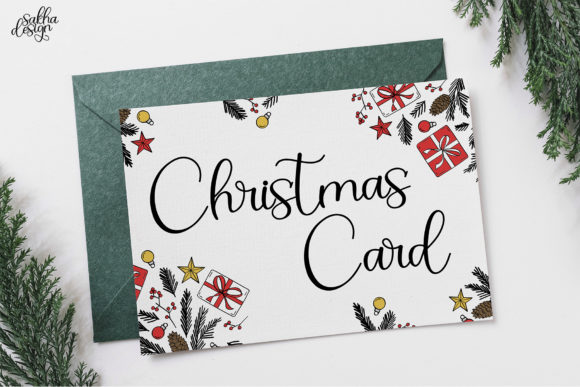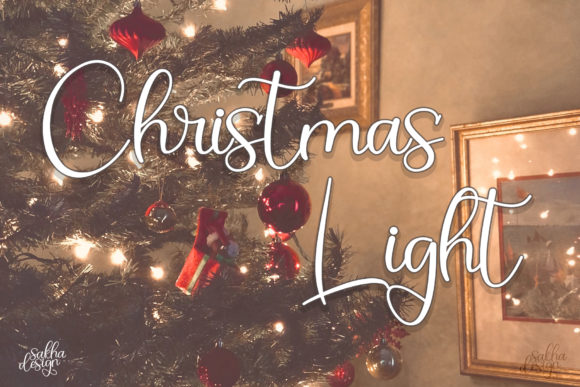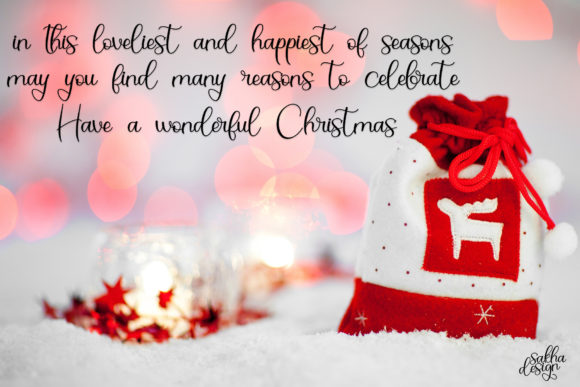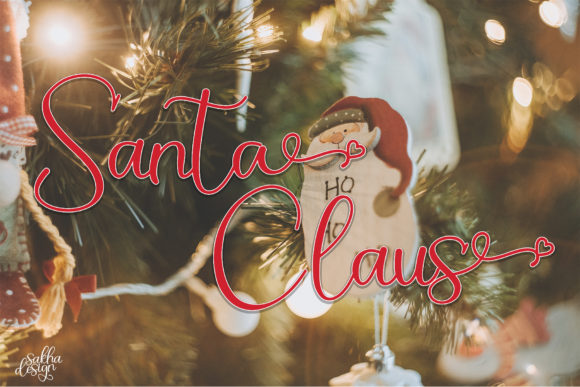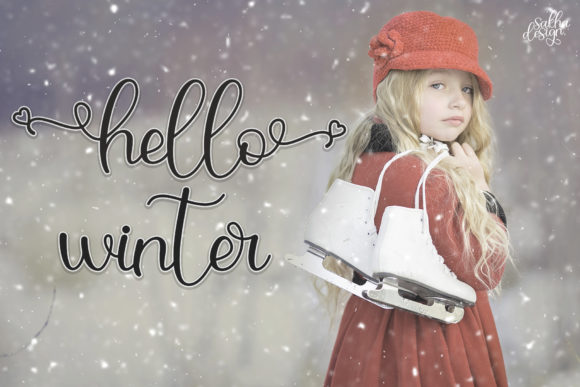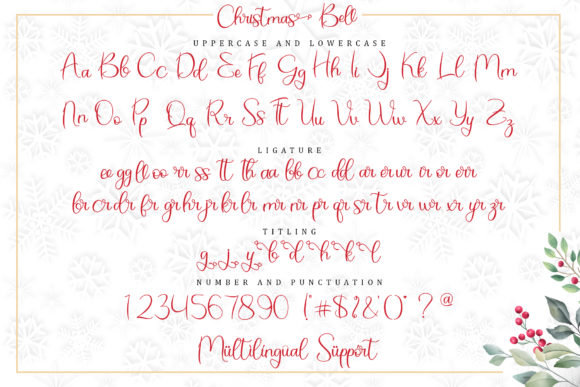
Introducing Christmas Bell Font: The Perfect Addition to Your Holiday Crafting Projects
Are you looking for a font that captures the essence of the holiday season? Do you want to add a touch of elegance and warmth to your crafting projects? Look no further than the Christmas Bell Font, a delicate, fresh, rich, and elegant handwritten font that’s perfect for holiday-themed greeting cards, invitations, and any crafting project that requires a personal touch.
What Makes Christmas Bell Font So Special?
Christmas Bell Font is a beautifully designed font that’s specifically crafted to evoke the feeling of the holiday season. Its delicate and elegant strokes make it perfect for creating sophisticated and eye-catching designs. The font is ideal for a variety of crafting projects, including:
• Holiday greeting cards and invitations
• Crafting projects, such as scrapbooking and journaling
• Digital papers and printable art
• Web graphics and social media posts
One of the best features of Christmas Bell Font is that it’s PUA (Private Use Area) encoded. This means that you can access all of the glyphs and swashes with ease, giving you complete creative control over your designs. With PUA encoding, you can:
• Easily access alternative characters and swashes
• Customize your designs with unique and creative elements
• Save time and effort by having all the glyphs and swashes at your fingertips
Why Choose Christmas Bell Font?
There are many fonts available that claim to be perfect for the holiday season, but Christmas Bell Font stands out from the rest. Here are just a few reasons why:
• Elegant and sophisticated design: Christmas Bell Font has a delicate and elegant design that’s perfect for creating high-end crafting projects.
• Easy to use: The font is PUA encoded, making it easy to access all of the glyphs and swashes.
• Versatile: Christmas Bell Font can be used for a wide range of crafting projects, from holiday greeting cards to digital papers and printable art.
• High-quality: The font is designed to be clear and legible, even at small sizes.
Tips for Using Christmas Bell Font
Now that you know why Christmas Bell Font is the perfect addition to your holiday crafting projects, here are a few tips for using the font:
• Pair it with other holiday fonts: Christmas Bell Font pairs perfectly with other holiday fonts, such as bold and playful fonts.
• Experiment with different colors: The font looks great in a variety of colors, from traditional holiday colors like red and green to more modern colors like gold and silver.
• Use it for titles and headings: Christmas Bell Font is perfect for titles and headings, adding a touch of elegance and sophistication to your designs.
Christmas Bell Font is the perfect addition to your holiday crafting projects. Its delicate, fresh, rich, and elegant design makes it ideal for holiday-themed greeting cards, invitations, and any crafting project that requires a warm touch. With PUA encoding, you can easily access all of the glyphs and swashes, giving you complete creative control over your designs. So why wait? Download Christmas Bell Font today and start creating beautiful and elegant holiday designs!